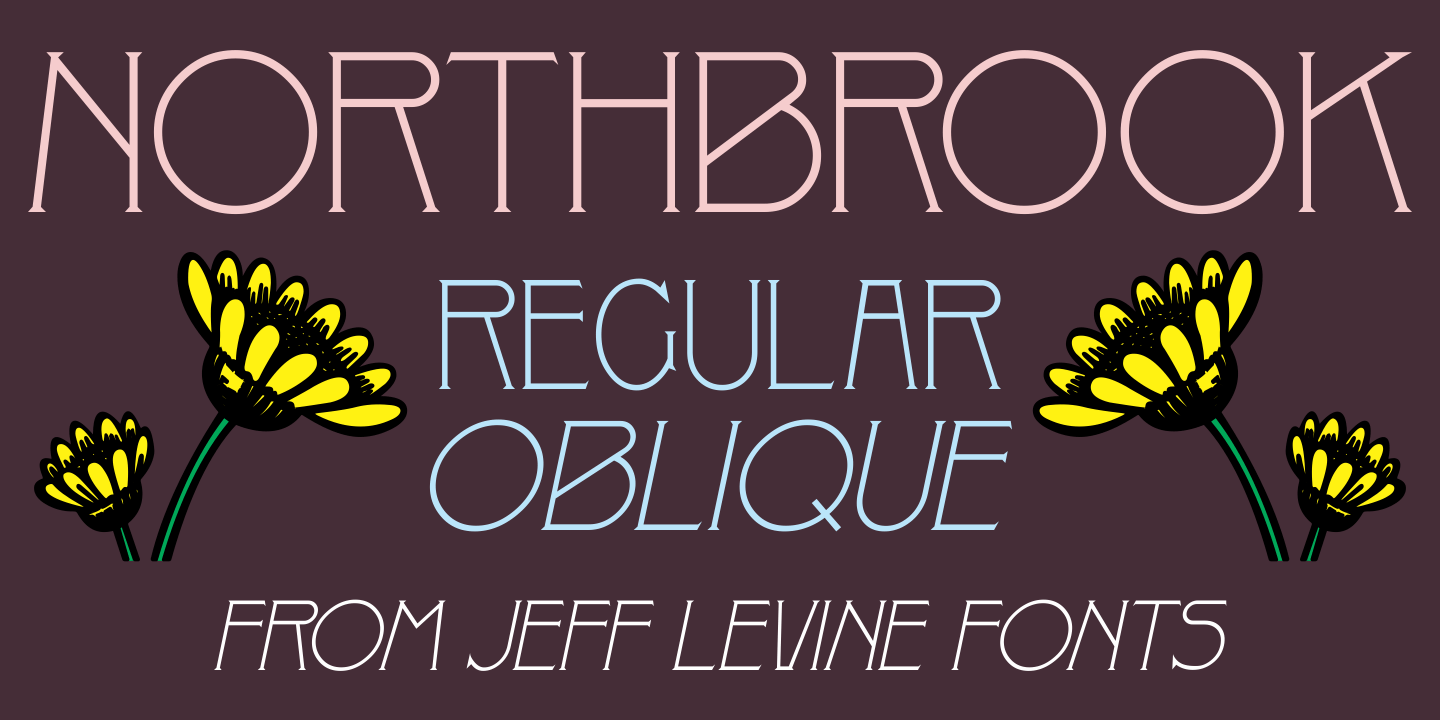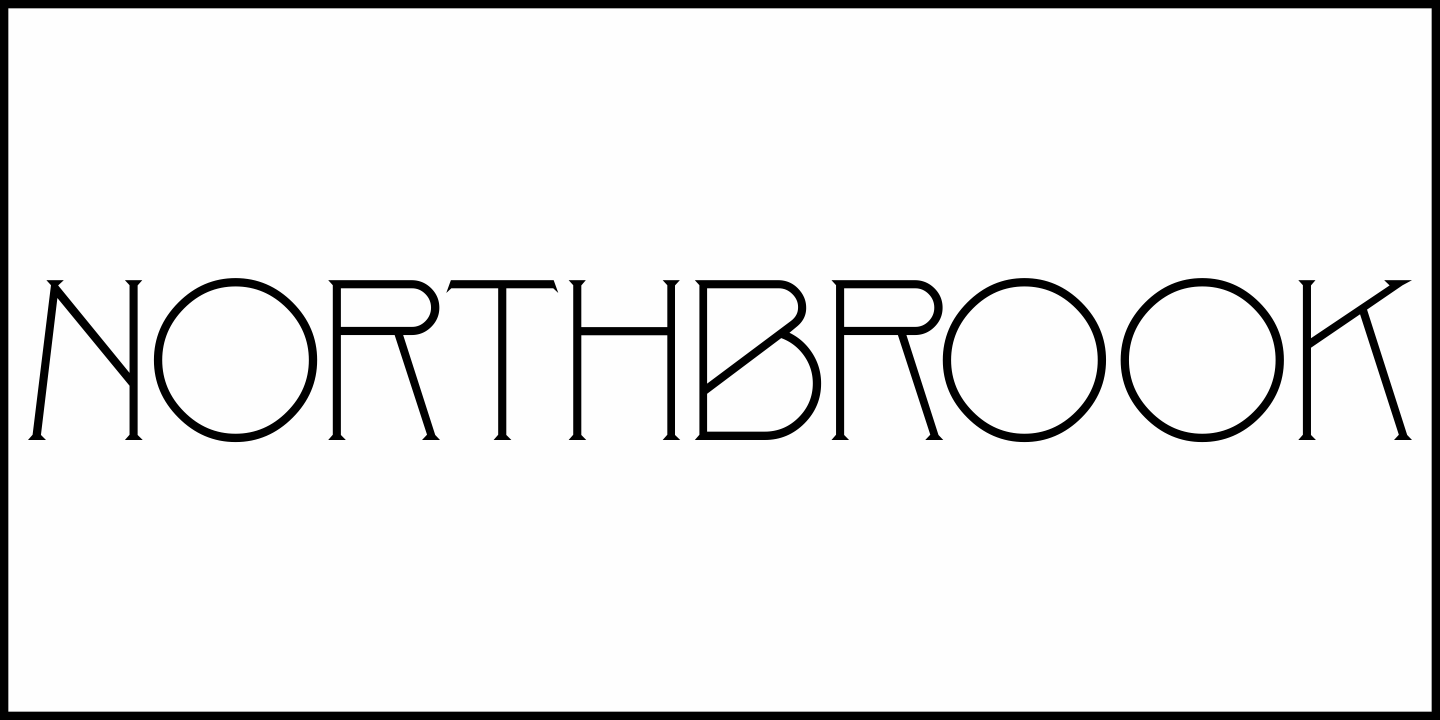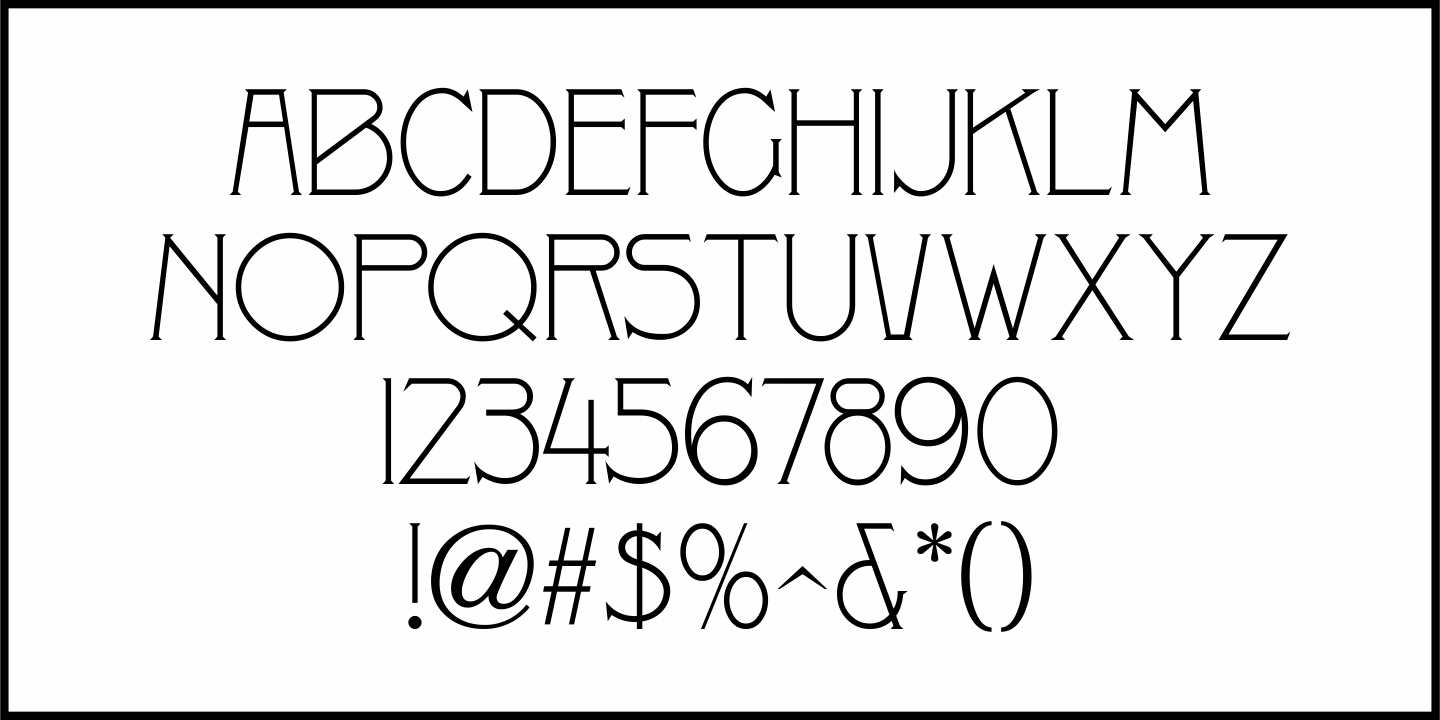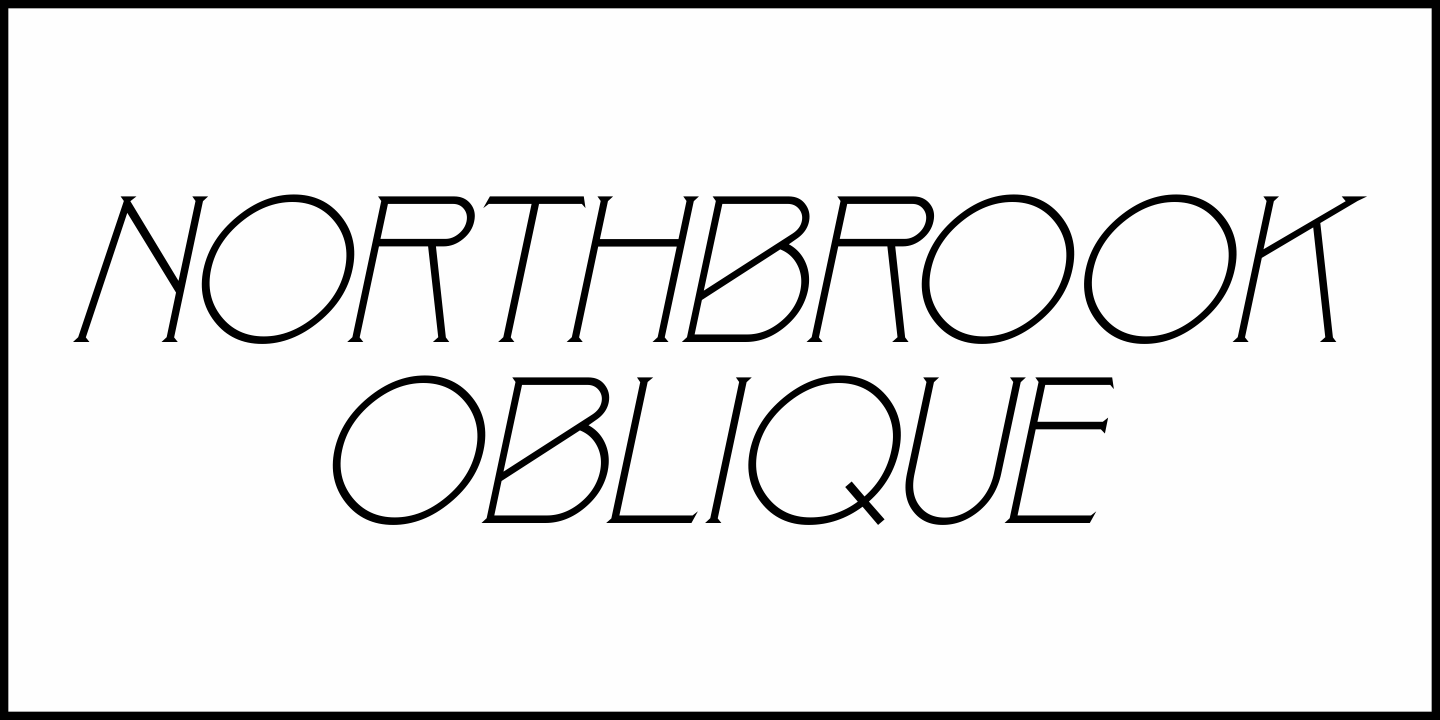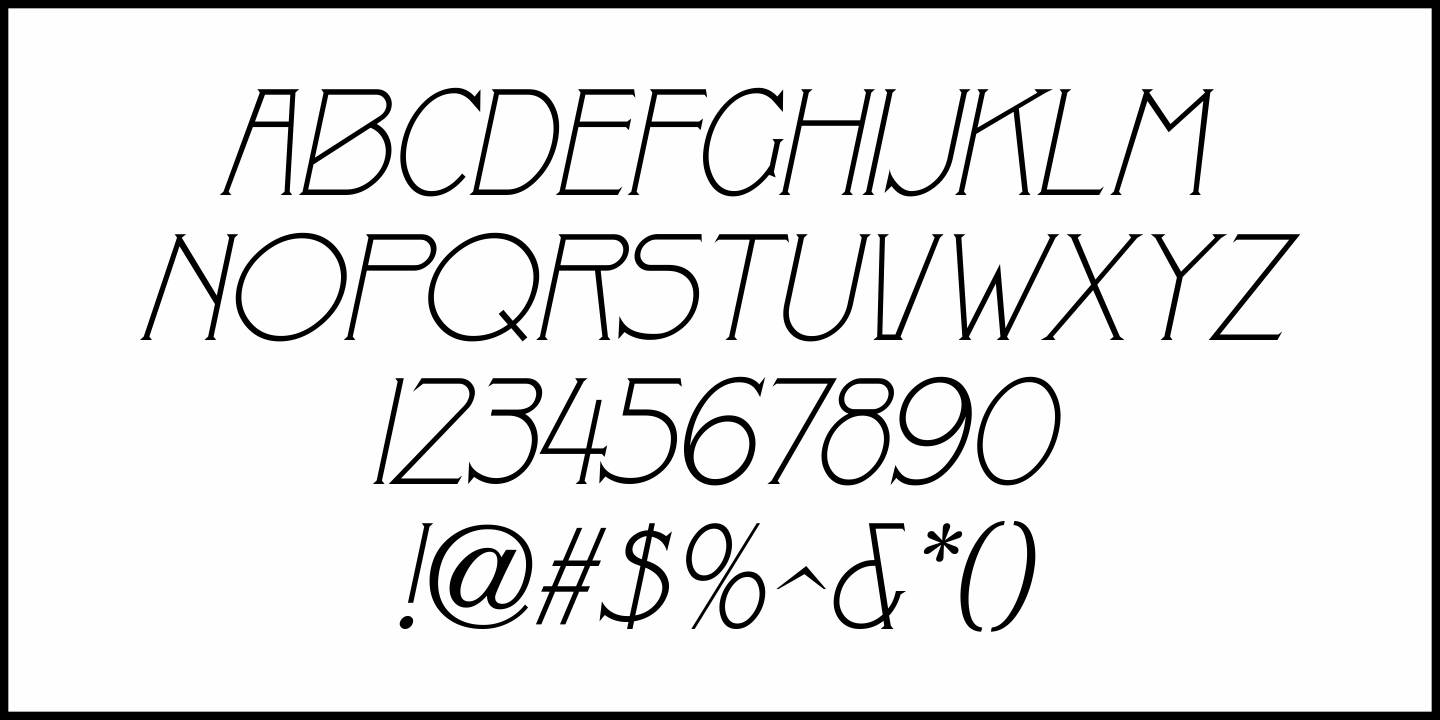
Northbrook
A monoline spurred sans serif typeface named “Elandkay” from the 1895 Cleveland Type Foundry specimen book was the design model for Northbrook JNL.
This Art Nouveau-influenced design is available in both regular and oblique versions.